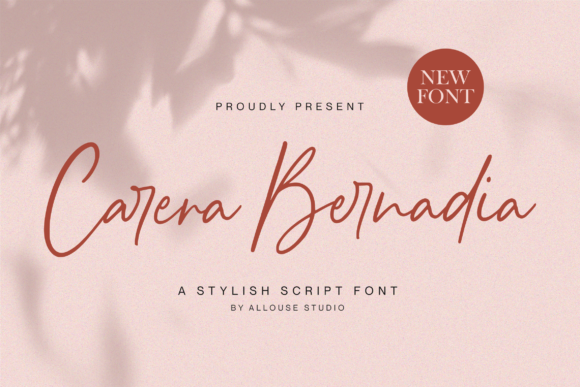
The Designer’s Delight: Carera Bernadia Font
I’ll never forget the time I was working on a branding project for a luxury wedding planner. I had spent hours agonizing over the perfect color palette and imagery, but something was still missing. That’s when I realized the font I had chosen just wasn’t elegant enough. I scoured the internet for the perfect handwritten font and that’s when I stumbled upon Carera Bernadia. It was love at first sight! 💕
Carera Bernadia is a superb handwritten font that will make your work stand out through its elegant and curvy lines. It is perfect for product packaging, branding projects, magazine covers, social media, wedding, or just used to express words above the background.
- ✨ Elegant and curvy lines that add a touch of sophistication to any design
- 💫 Perfect for a variety of design projects, from wedding invitations to product packaging
- 🎨 Great for designers who want to add a personal touch to their work
While Carera Bernadia is an amazing font, there are a few things to keep in mind:
- ⚠️ It may not be the best choice for body text, as it’s a bit too ornate for long blocks of text
- 🤔 Some users may find the font a bit too script-like for their taste
The Story Behind Carera Bernadia
Carera Bernadia was designed by a talented font designer who’s passionate about creating beautiful, elegant fonts. The font was inspired by traditional calligraphy and handwriting, with a focus on creating a unique and sophisticated look.
Q: What is Carera Bernadia font?
A: Carera Bernadia is a superb handwritten font that features elegant and curvy lines, perfect for a variety of design projects.
Q: Is Carera Bernadia suitable for body text?
A: While Carera Bernadia is highly legible, it may not be the best choice for body text due to its ornate nature.
Q: Is Carera Bernadia easy to read?
A: Yes, Carera Bernadia is highly legible, even at small font sizes, making it perfect for a variety of design projects.